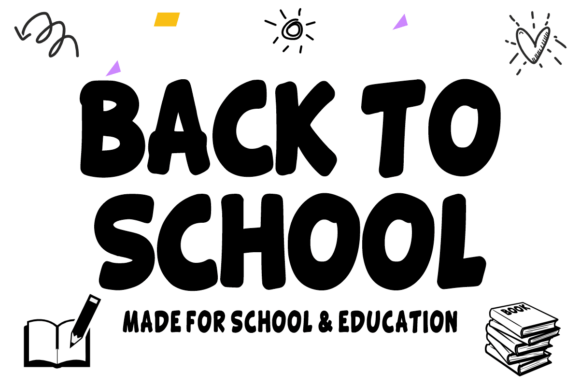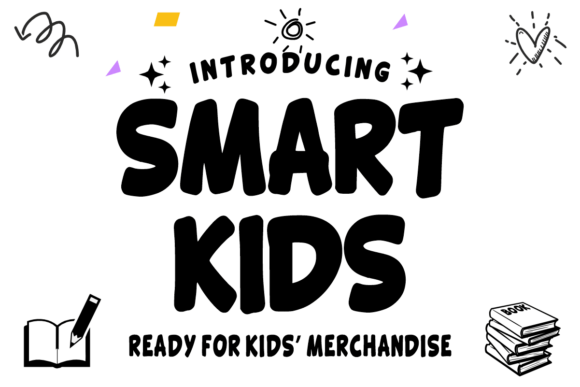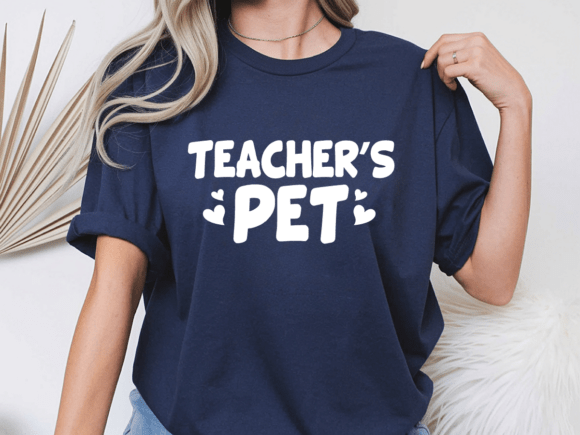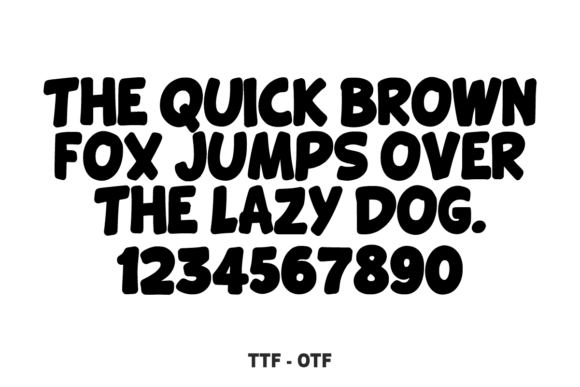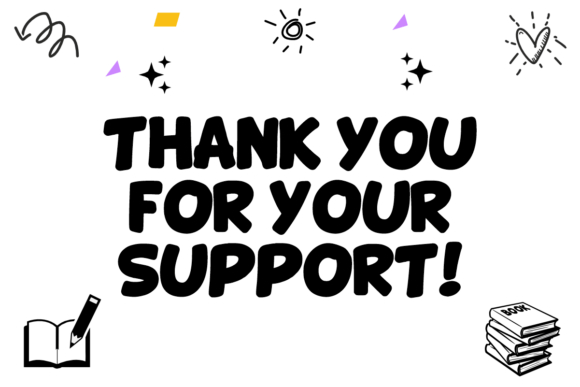
🎨 Comic Title – The Ultimate Bold & Fun Kids Display Font 🌟
Are you looking for a font that can add a touch of excitement and energy to your designs? Look no further than Comic Title, a robust and playful display font designed specifically for high-energy projects! Featuring thick, bold strokes and friendly rounded edges, this font captures the classic “heroic” feel of comic book headlines while staying perfect for modern kids’ branding.
What Makes Comic Title Special?
Comic Title provides the perfect weight and balance to make your text pop. Its clean and highly legible design makes it incredibly easy to use for both digital and physical products. Whether you are designing a book cover, creating catchy YouTube thumbnails, or crafting custom merchandise, Comic Title is the perfect choice.
Perfect Use Cases for Comic Title
Comic Title is a versatile font that can be used in a variety of projects, including:
- 📚 Kids’ Merchandise: T-shirts, hoodies, backpacks, lunchboxes, and more!
- 📺 Digital Content: YouTube thumbnails, game titles, social media posts, and more!
- 🏫 School Projects: Posters, book covers, classroom decor, and more!
- 🎂 Party Supplies: Invitations, banners, cake toppers, and more!
- ✂️ DIY Crafting: Vinyl cutting, stickers, sublimation, and more!
Why Choose Comic Title?
There are many reasons why Comic Title stands out from the rest:
- Unique and Playful Design: Comic Title features a unique and playful design that is sure to grab attention.
- Highly Legible: The font is clean and highly legible, making it perfect for both digital and physical products.
- Easily Customizable: Comic Title is incredibly easy to use and customize, making it perfect for designers and crafters of all levels.
- Versatile: The font can be used in a variety of projects, from kids’ merchandise to digital content.
Tips and Tricks for Using Comic Title
Here are a few tips and tricks for getting the most out of Comic Title:
- Experiment with Colors: Comic Title looks great in a variety of colors, so don’t be afraid to experiment and find the perfect hue for your project.
- Mix and Match: Try mixing and matching Comic Title with other fonts to create a unique and eye-catching design.
- Pay Attention to Size: Make sure to adjust the size of the font according to the project. A larger size can be perfect for posters and billboards, while a smaller size can be better for social media posts.
Comic Title is the ultimate bold font for big ideas. With its unique and playful design, highly legible text, and versatility, it’s the perfect choice for designers and crafters looking to add a touch of excitement and energy to their projects. Whether you’re working on kids’ merchandise, digital content, school projects, party supplies, or DIY crafting, Comic Title is sure to level up your designs and make them stand out from the crowd.